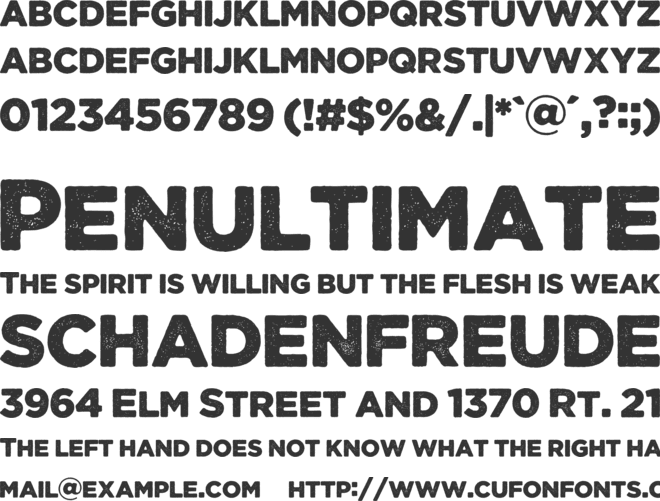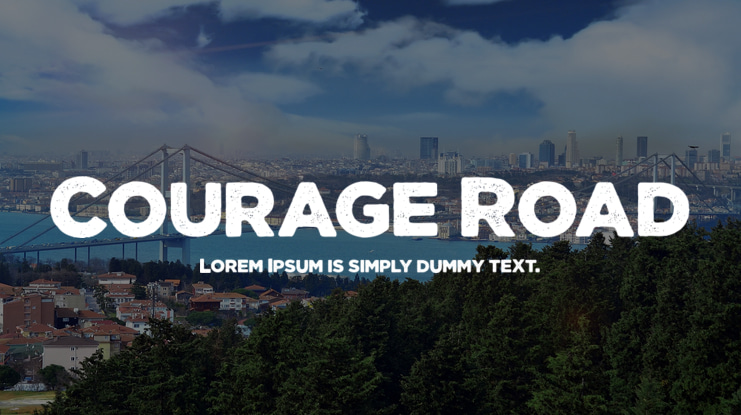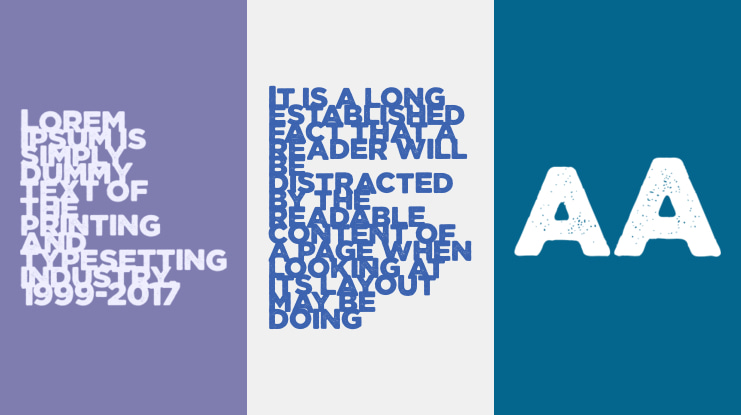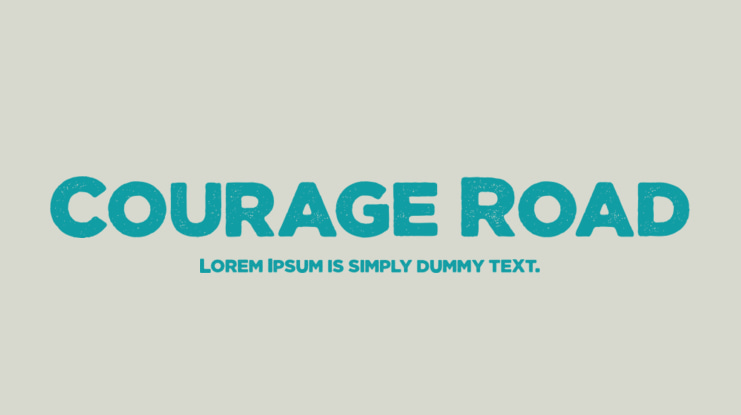
Courage Road Font
S. John Ross
This font is a new entry into one of my most popular forms, the stressed poster font. This one is extra bold, though, because it's about one person's courage, and a tribute to the line to their heart. This is the COURAGE ROAD.PLEASE CONSIDER HELPING: Paula Repko, who inspired this font, needs your help. Visit paula.cumberlandgames.comCOURAGE ROAD is a full US-Keyboard Small-Caps stressed poster font with some extras for additional European alphabets. Enjoy!